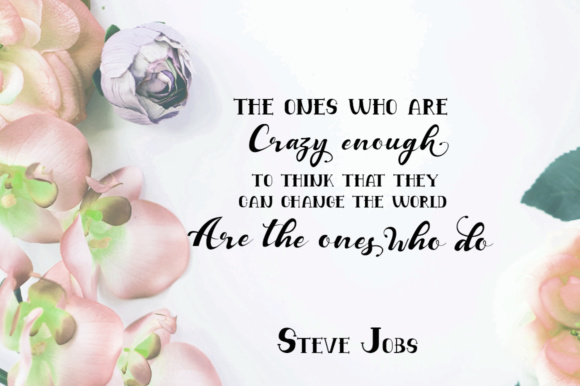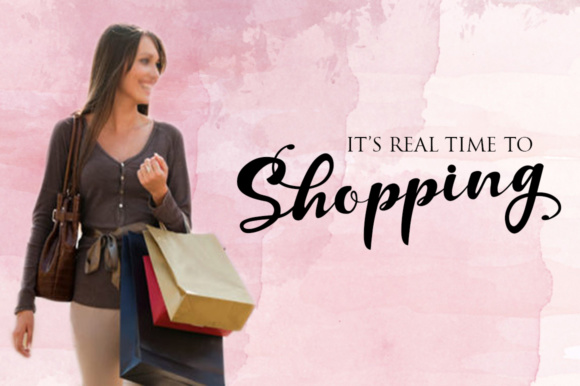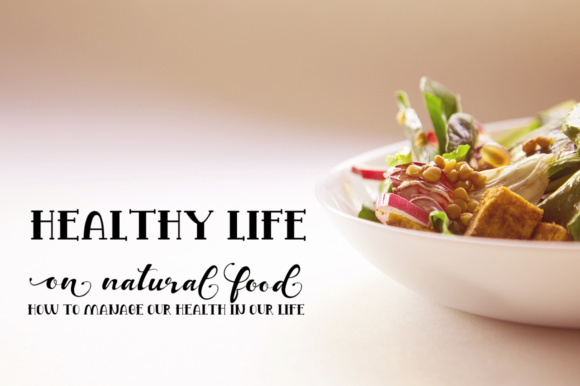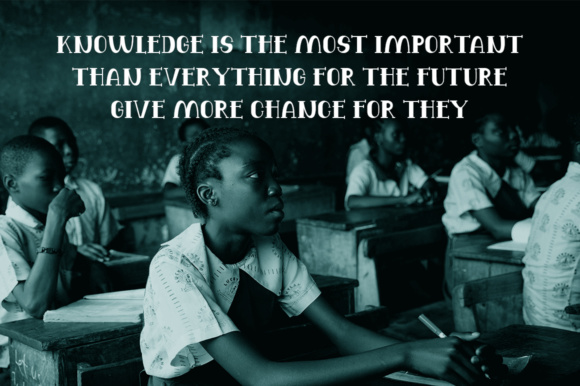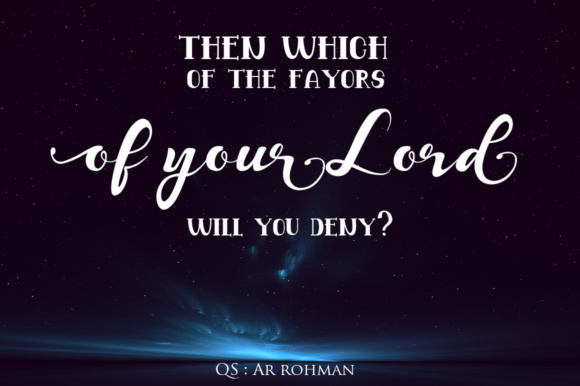
Balutteli Font
Balutteli is a stunning font duo, perfect for giving your designs a contemporary and graceful feel. This font is a great way to give your designs a handwritten yet classic appeal.